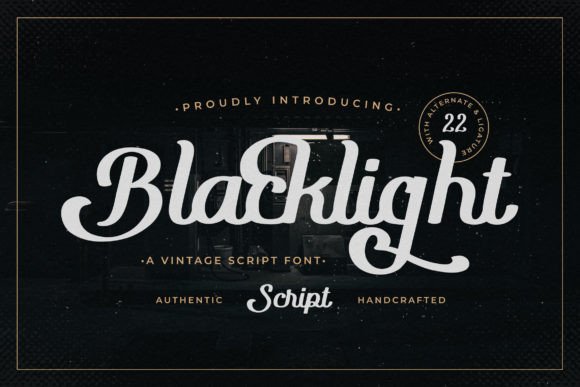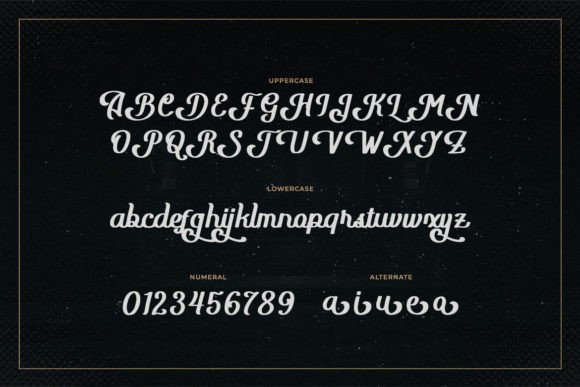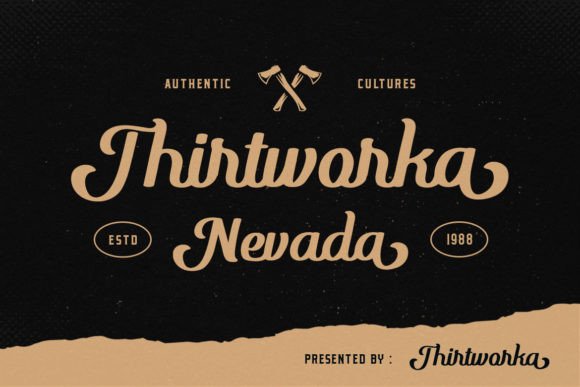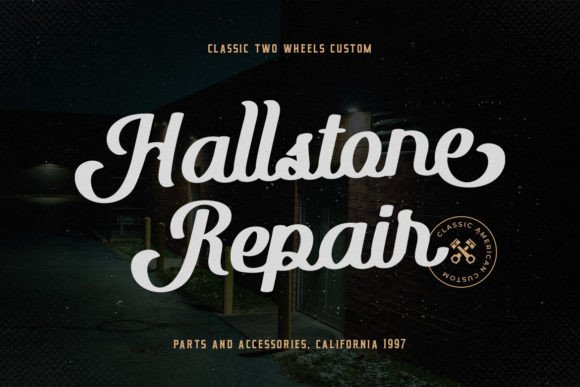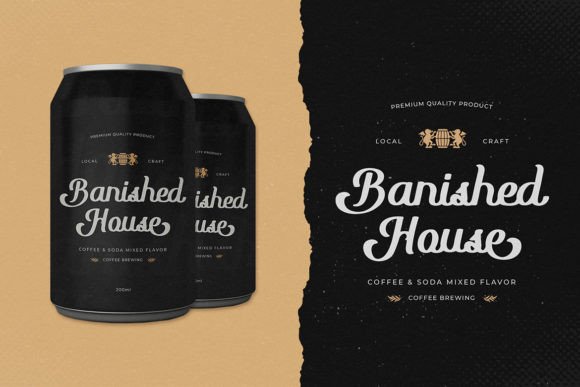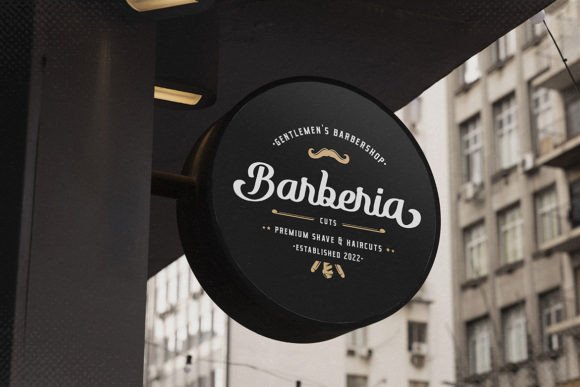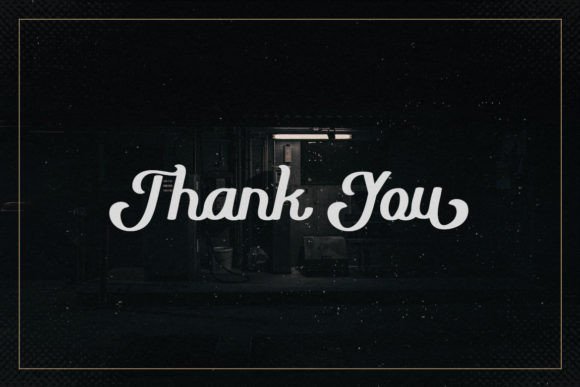
Blacklight Font
About Blacklight Font
“Blacklight” is a vintage script font that exudes a timeless and retro aesthetic. Its design makes it versatile for various applications, making it suitable for logos, headings, coffee shops, vintage restaurants, letterhead, signage, labels, news, posters, badges, and more.
The vintage charm of “Blacklight” lends a classic and nostalgic feel to your text, making it well-suited for projects that aim to evoke a sense of heritage or a bygone era. The script style adds a touch of elegance and personality to the overall design.
Whether you’re creating a vintage-inspired logo, crafting a retro poster, or designing signage for a nostalgic setting, “Blacklight” provides a distinctive and authentic typeface to enhance your project.
The font’s versatility allows it to adapt to various design contexts, making it a valuable choice for designers seeking a typeface that can bring a vintage flair to their creations.
In summary, “Blacklight” is a vintage script font that offers a timeless and retro aesthetic, making it a suitable choice for a range of applications. Its classic charm and versatile design make it a valuable asset for designers looking to infuse a touch of vintage elegance into their projects.